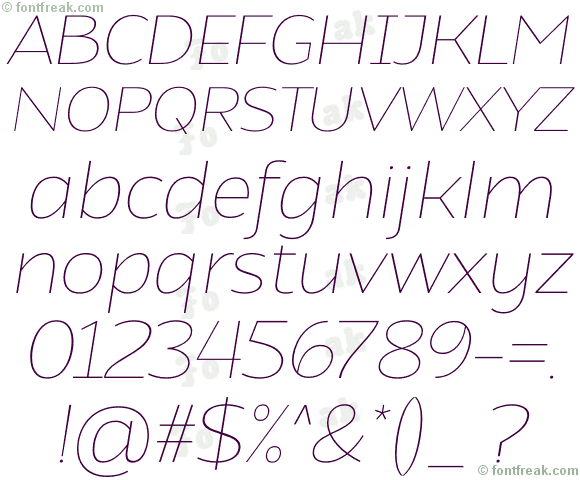
Atozimple ExtraLight Italic is a contemporary sans-serif typeface designed by Situjuh Nazara, characterized by its elegant and minimalist aesthetic. Its extra-light stroke weight and italic style create a sense of fluidity and movement, making it ideal for a variety of design applications. The font features a subtle contrast between thick and thin strokes, providing a delicate appearance without sacrificing legibility. The generous spacing of the characters enhances readability, making it suitable for both print and digital media.
This versatile font excels in numerous use cases. It works beautifully for wedding invitations, where its refined elegance adds a touch of sophistication. Additionally, Atozimple ExtraLight Italic is perfect for modern restaurant menus, giving a clean and inviting feel that complements culinary artistry. Graphic designers can employ this typeface in branding projects to convey a sense of style and professionalism. It's also an excellent choice for editorial layouts, such as magazine articles or blog posts, where a contemporary yet readable font is essential. Content creators seeking to elevate their visual identity will find this font particularly appealing for social media graphics and promotional materials.
What truly sets the Atozimple ExtraLight Italic font apart is its unique blend of simplicity and elegance. Whether used in a sophisticated wedding invitation or a trendy menu, this font encapsulates a modern aesthetic that resonates with a wide audience. For those in search of a stylish typeface, the Atozimple ExtraLight Italic font free download is an exceptional choice.